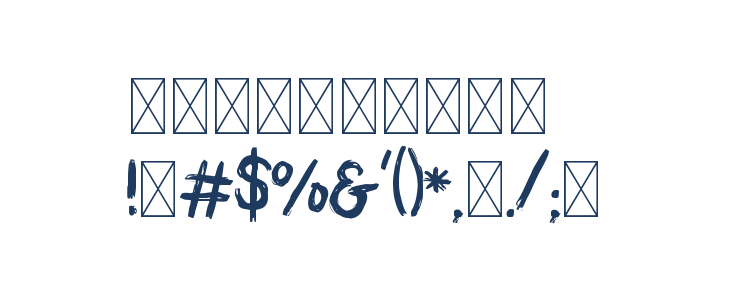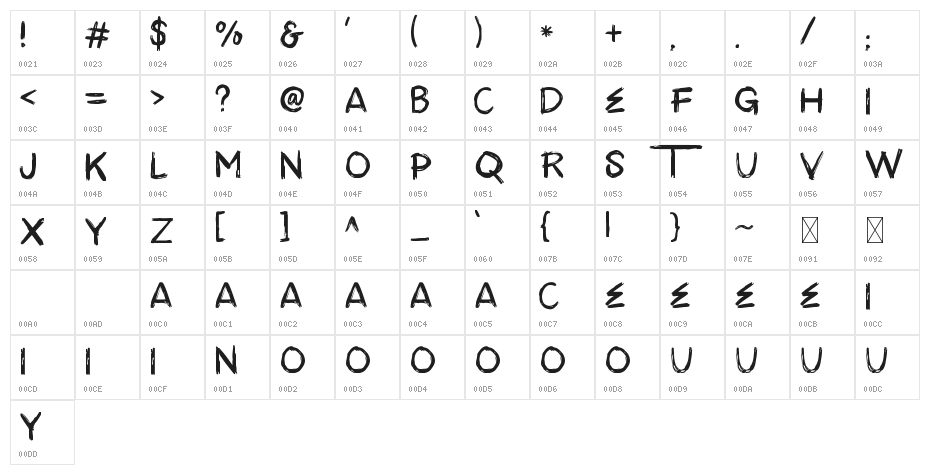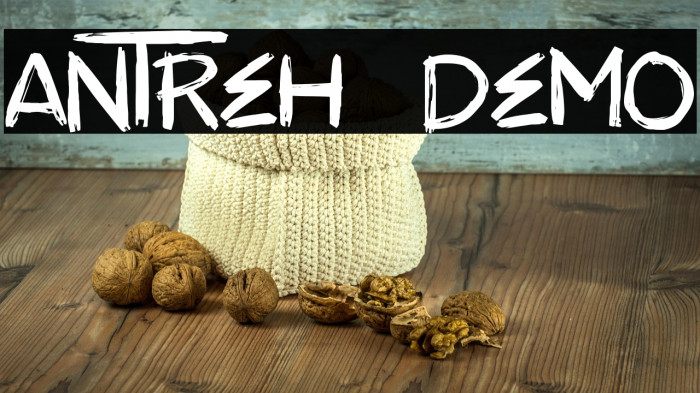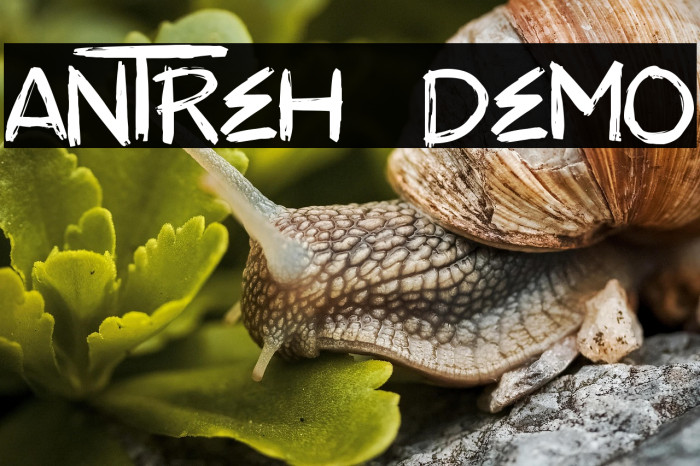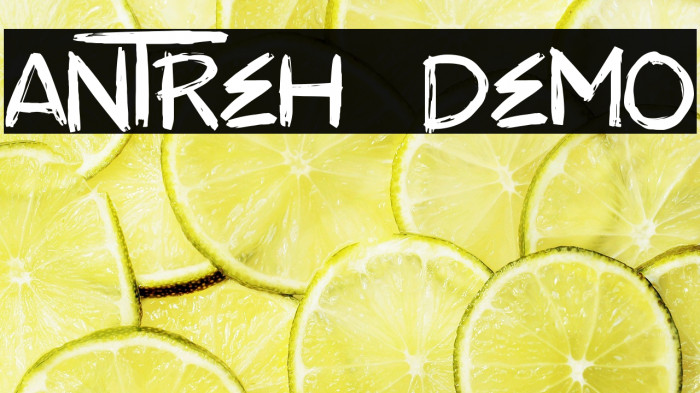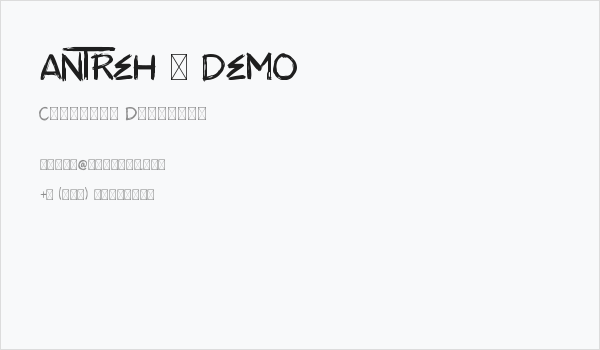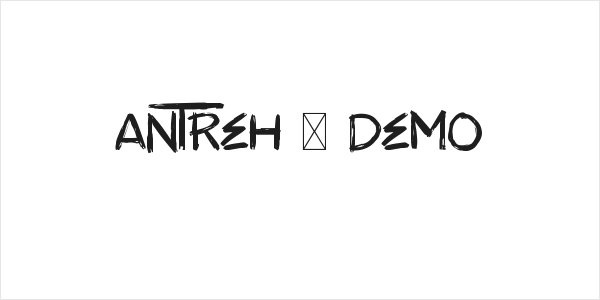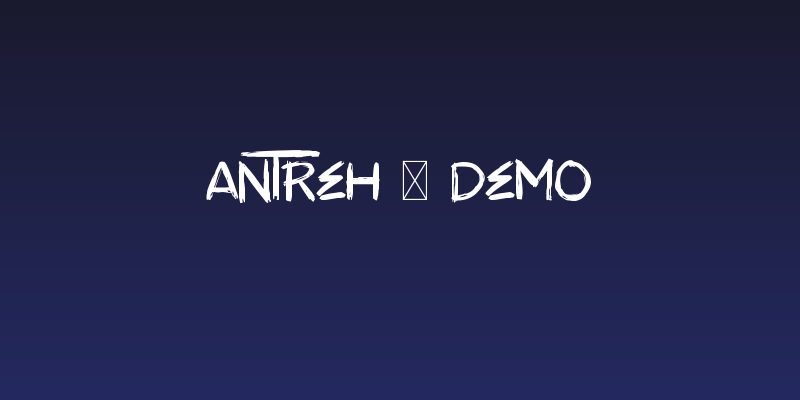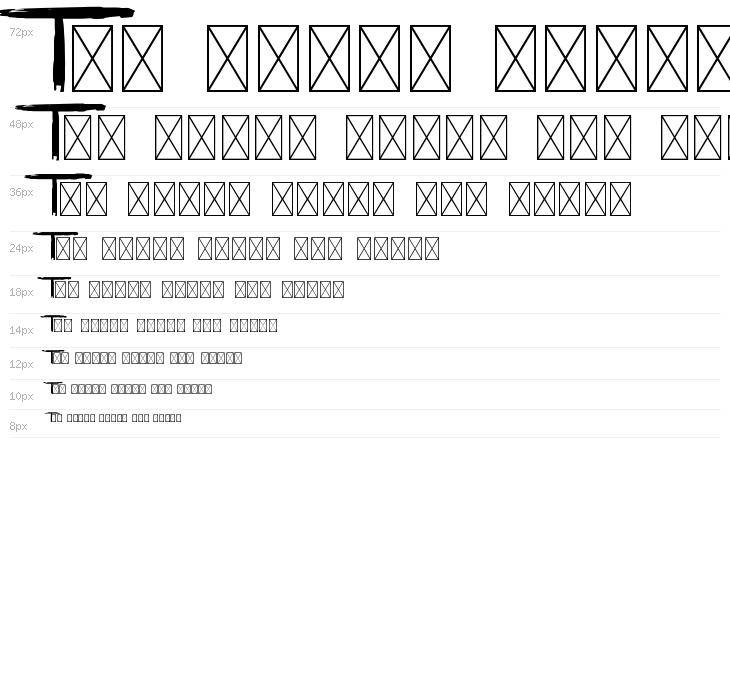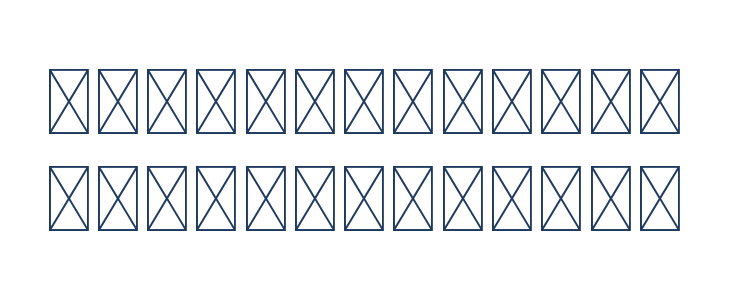
ANTREH - DEMO Font
ANTREH - DEMO Description
This font features a bold, expressive style with a hand-drawn appearance. The strokes are uneven, giving it a dynamic and energetic feel. The characters are slightly rough around the edges, adding to its raw and artistic look. The uppercase and lowercase letters maintain a consistent style, with a playful yet edgy vibe. The numerals and special characters follow the same aesthetic, making the font suitable for creative and informal designs. Its unique character shapes and brush-like strokes make it stand out, perfect for projects that require a touch of personality and flair.